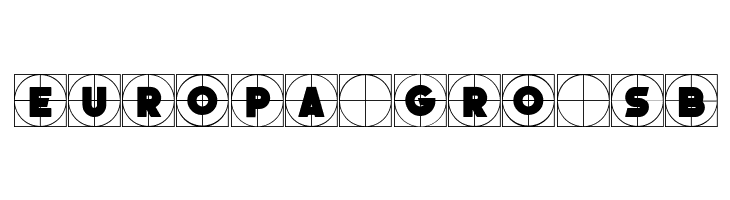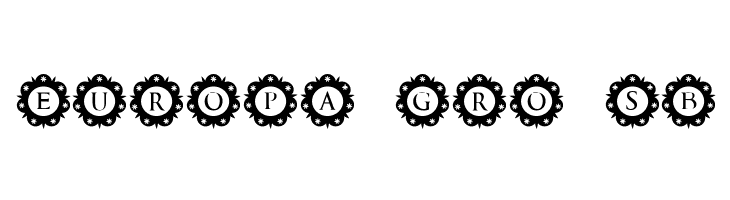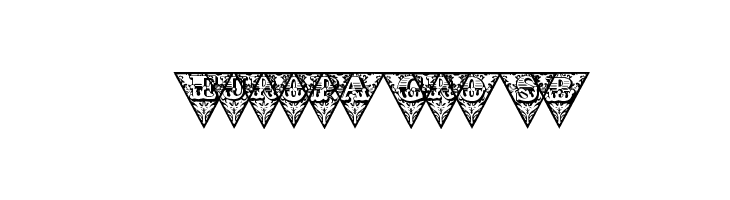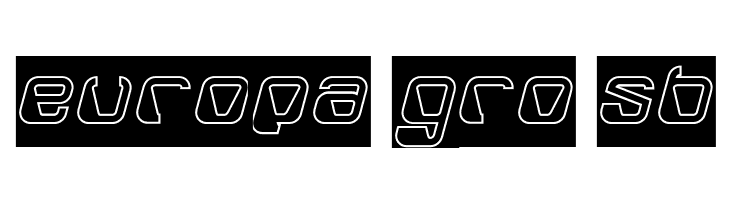
( Vladimir Nikolic - www.coroflot.com/vladimirnikolic )
A bold, geometric font with characters enclosed in grid-like blocks, featuring circular elements.
( Vladimir Nikolic - www.coroflot.com/vladimirnikolic )
A decorative font with bold characters enclosed in ornate circular frames.
( Vladimir Nikolic - www.coroflot.com/vladimirnikolic )
A playful font with characters enclosed in hand-drawn circles, offering a whimsical and informal style.
( balazs95 )
A modern, geometric font with characters enclosed in circles, offering a futuristic look.
( domenico_cristallo - Domenico Cristallo - www.instagram.com/domenico_cristallo/?hl=it )
A decorative font with characters enclosed in intricate triangular designs.
( ice demon - Ice Demon )
A bold, geometric font with characters enclosed in squares, offering a modern, pixelated style.
A whimsical, bold font with playful, uneven letterforms enclosed in tilted squares.
A decorative font with characters enclosed in heart shapes, perfect for romantic themes.
A futuristic, geometric font with hollow, inverse letterforms enclosed in squares.
( !Exclamachine Type Foundry - exclamachine.com/ )
A bold, geometric font with characters enclosed in square outlines, offering a modern and mechanical look.